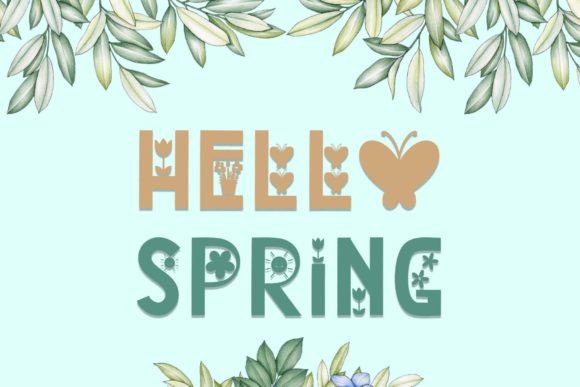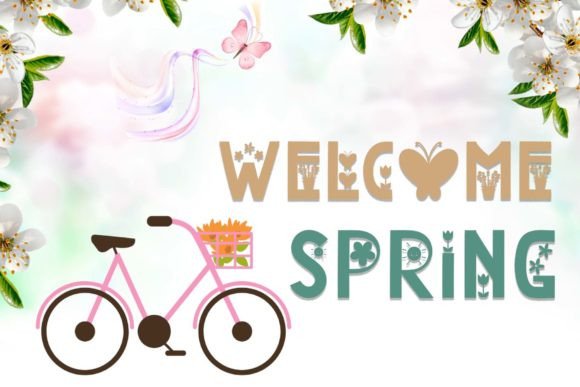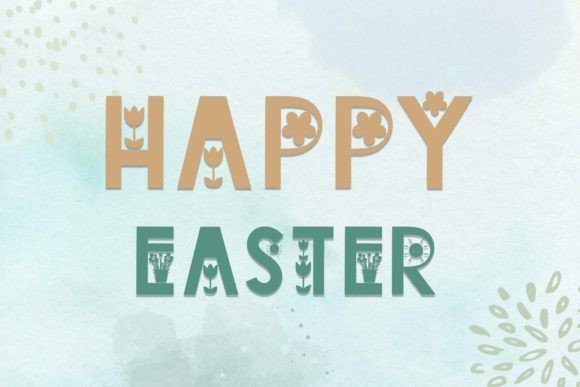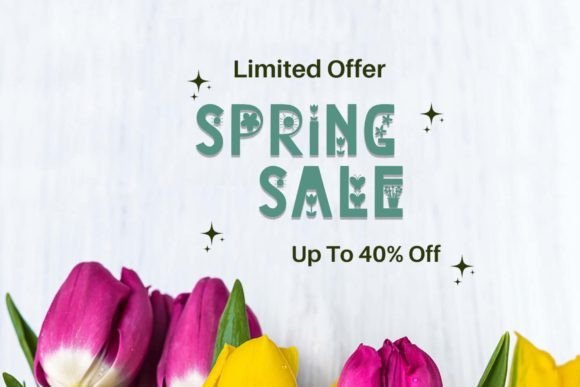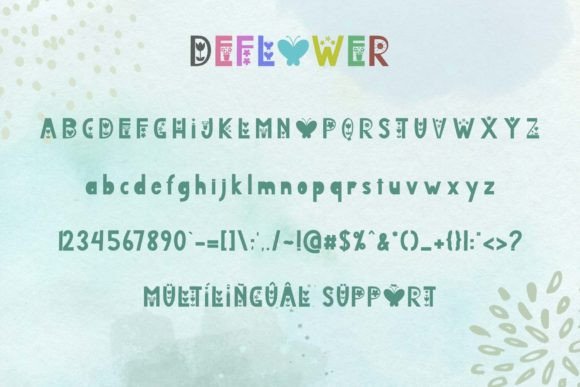
Introducing Deflower Font: The Quirky and Cute Floral Decoration Font
Are you looking for a font that can add a touch of spring, Easter, or wedding charm to your designs? Look no further than Deflower Font! This quirky and cute font features floral decorations in each capital letter, making it perfect for a variety of creative projects. In this article, we’ll dive into the details of Deflower Font, its features, and how you can use it to elevate your designs.
What is Deflower Font?
Deflower Font is a unique and charming font that combines elegant typography with whimsical floral decorations. Each capital letter features a beautiful floral design, making it perfect for designs that require a touch of spring or a romantic feel. The font is designed to be versatile and can be used for a variety of purposes, including:
- Spring and Easter-themed designs
- Wedding invitations, decorations, and stationery
- Photography and graphic design projects
Features of Deflower Font
Deflower Font has several features that make it a great choice for designers and crafters:
- Unique Floral Decorations: Each capital letter features a beautiful floral design, making it perfect for spring and Easter-themed designs.
- Quirky and Cute: Deflower Font has a playful and charming personality, making it perfect for designs that require a touch of whimsy.
- Versatile: The font can be used for a variety of purposes, from wedding invitations to photography projects.
- Elegant Typography: The font features elegant typography, making it perfect for designs that require a touch of sophistication.
How to Use Deflower Font
Deflower Font is easy to use and can be incorporated into a variety of design projects. Here are a few ideas to get you started:
- Wedding Invitations: Use Deflower Font to create beautiful and unique wedding invitations that set the tone for your special day.
- Spring and Easter-themed Designs: Use Deflower Font to create festive and fun designs for spring and Easter-themed projects.
- Photography Projects: Use Deflower Font to add a touch of elegance and whimsy to your photography projects.
- Crafting and DIY Projects: Use Deflower Font to add a personal touch to your crafting and DIY projects, such as handmade cards and gift tags.
Tips for Using Deflower Font
Here are a few tips for using Deflower Font:
- Use it sparingly: Deflower Font is a decorative font, so use it sparingly to add emphasis to your designs.
- Pair it with a simple font: Pair Deflower Font with a simple font to create a beautiful contrast.
- Experiment with colors: Experiment with different colors to find the perfect combination for your design.
Deflower Font is a unique and charming font that can add a touch of spring, Easter, or wedding charm to your designs. With its quirky and cute floral decorations, elegant typography, and versatility, it’s perfect for a variety of creative projects. Whether you’re a designer, crafter, or DIY enthusiast, Deflower Font is a great choice for adding a personal touch to your designs.